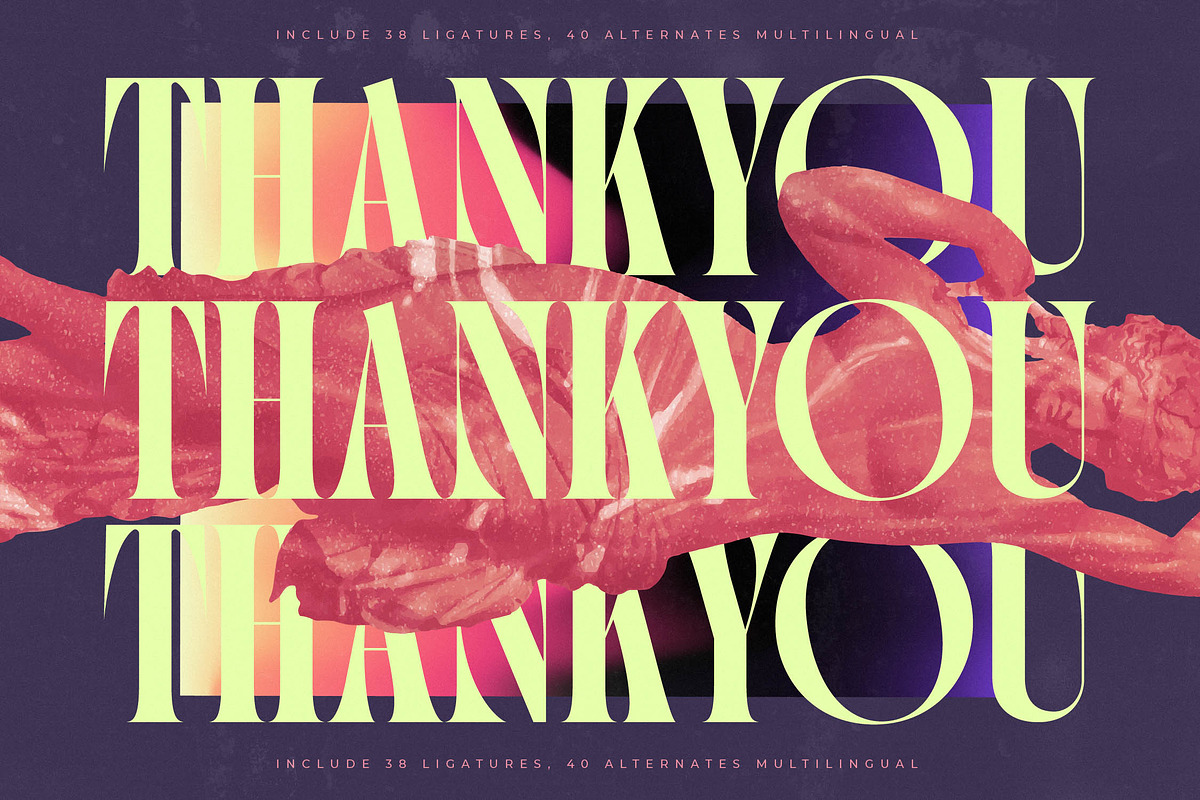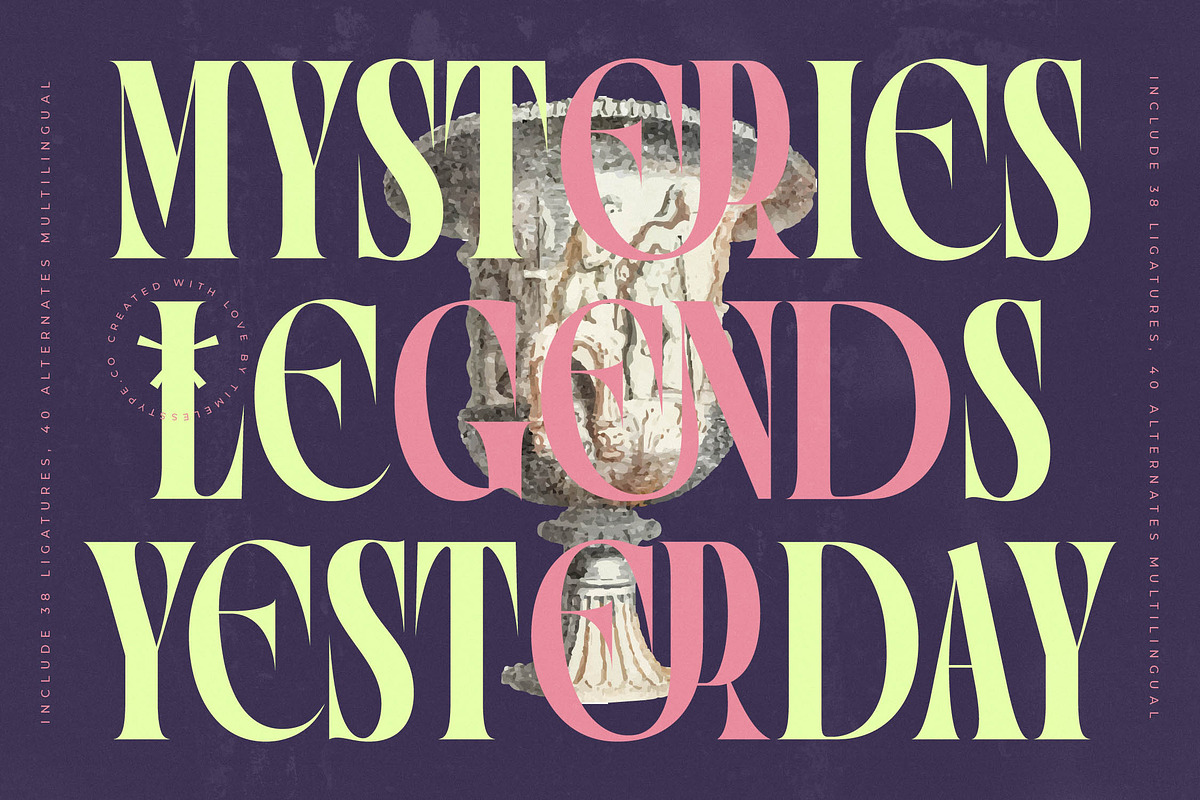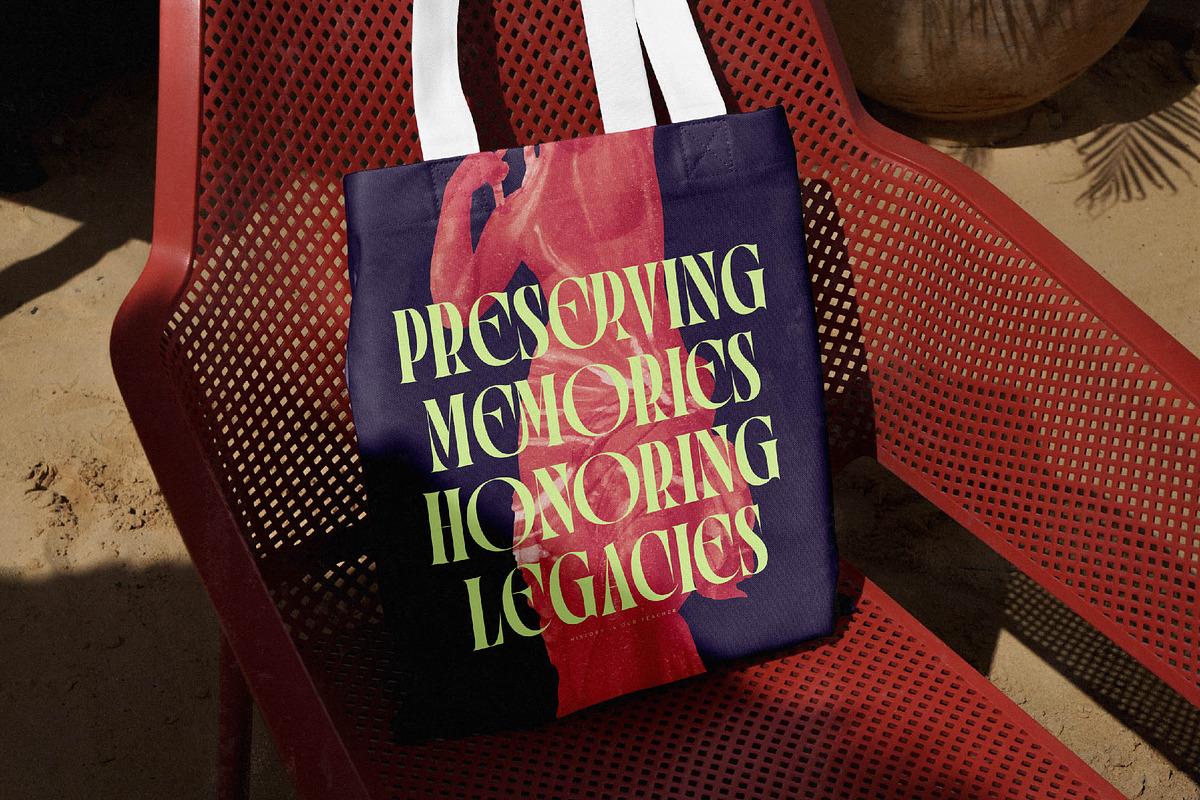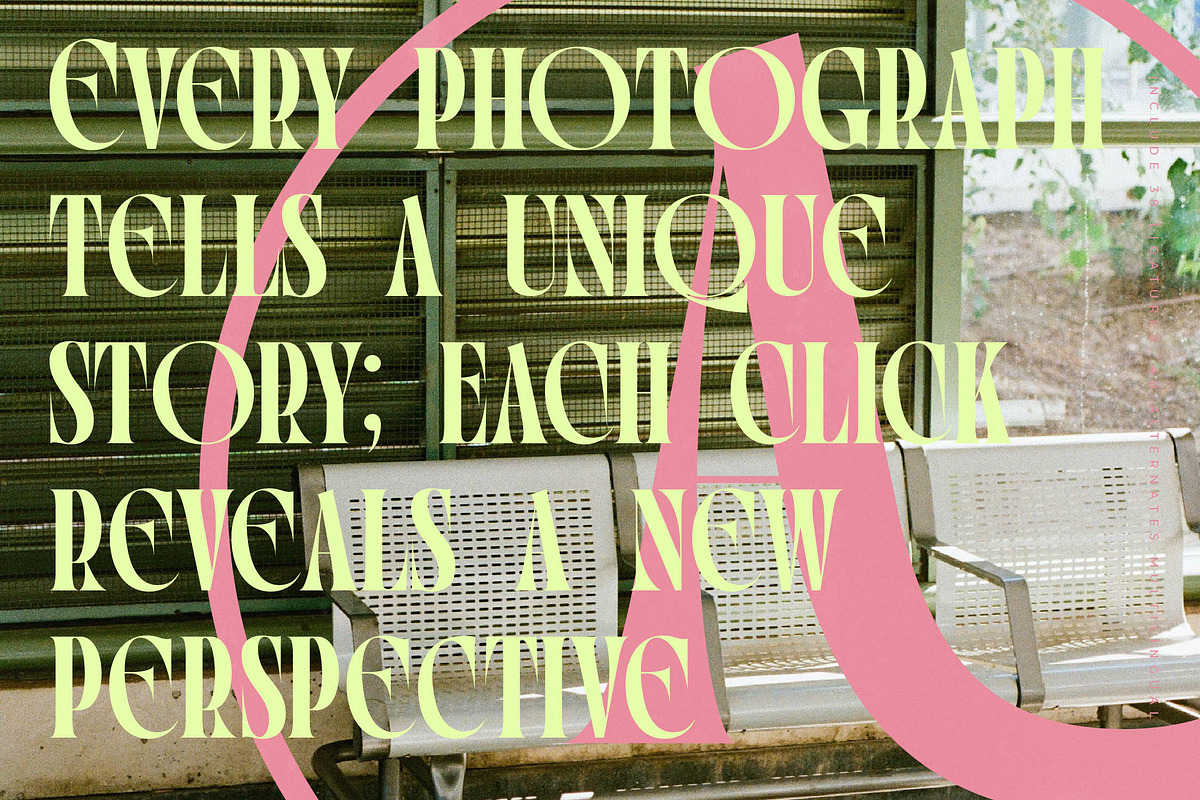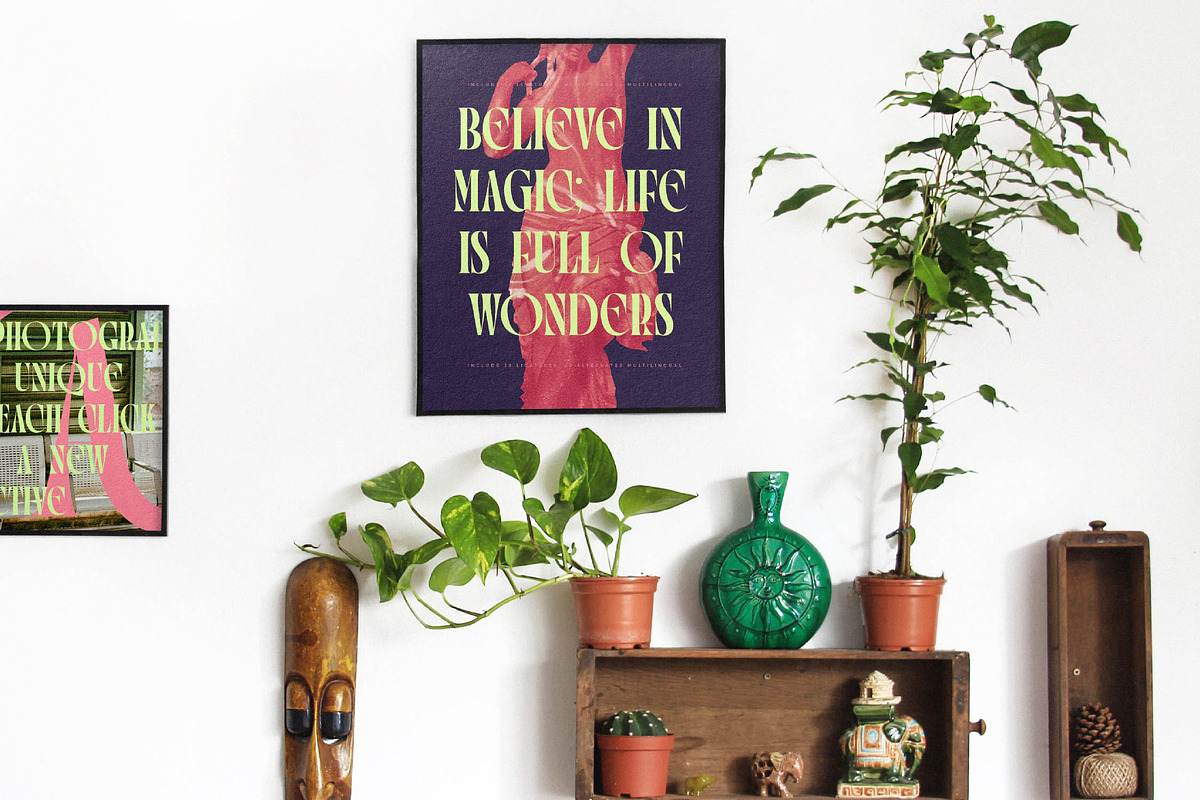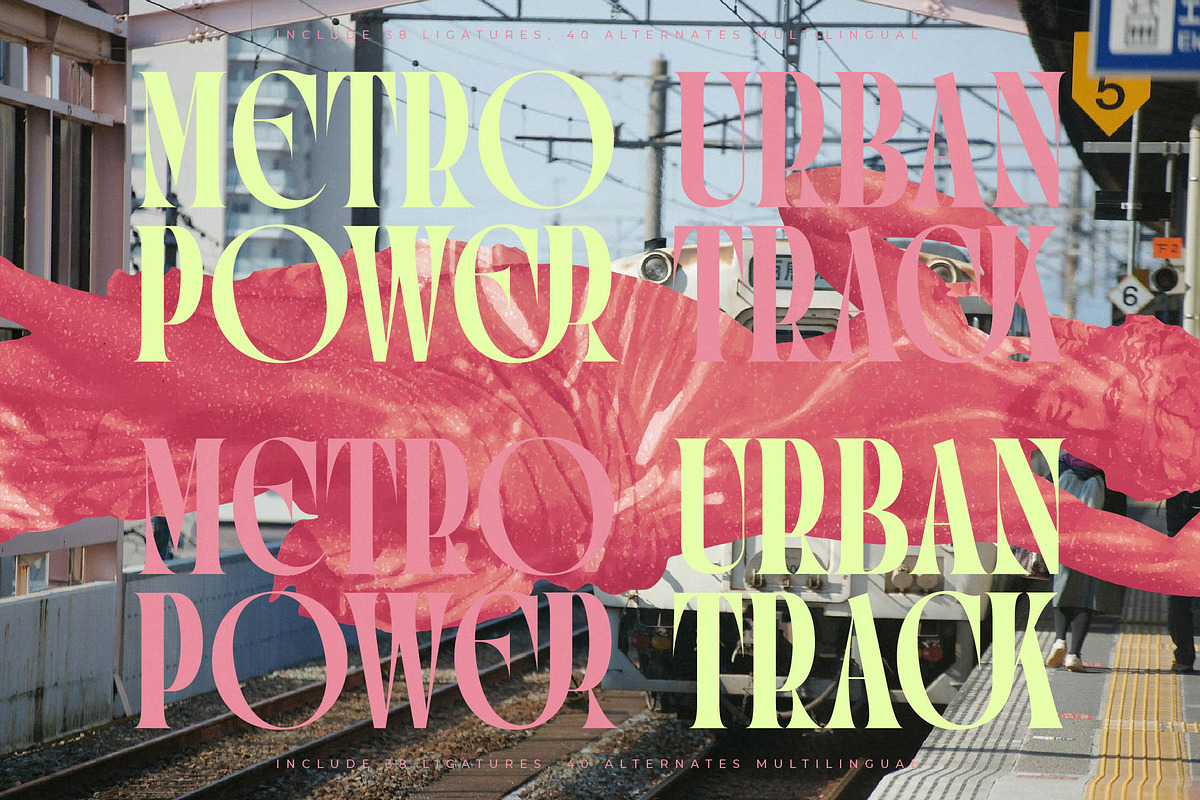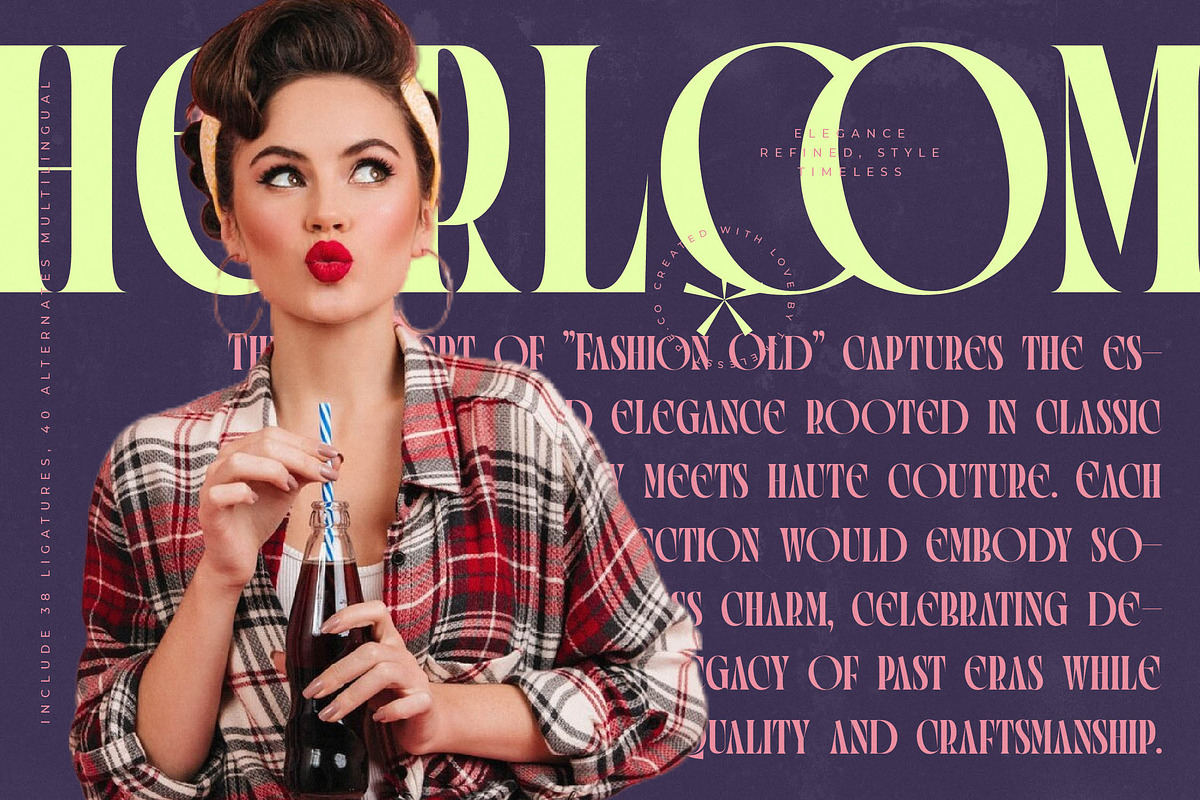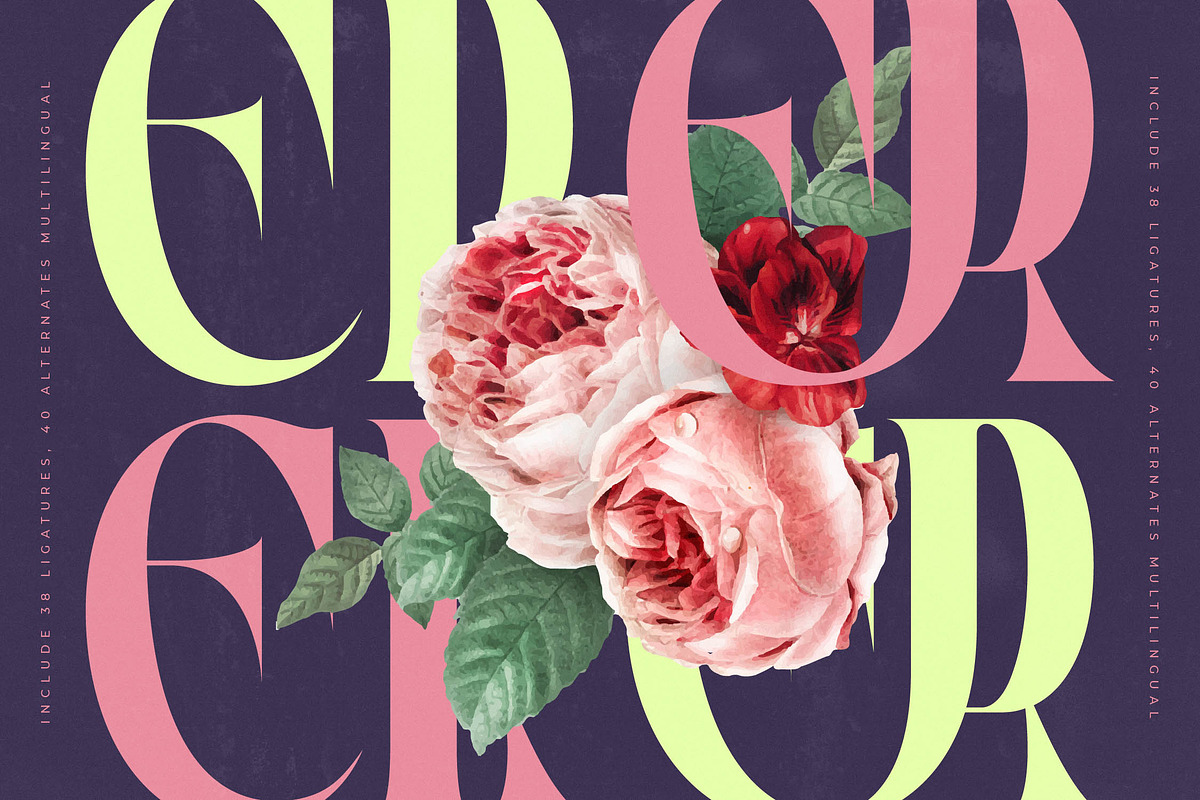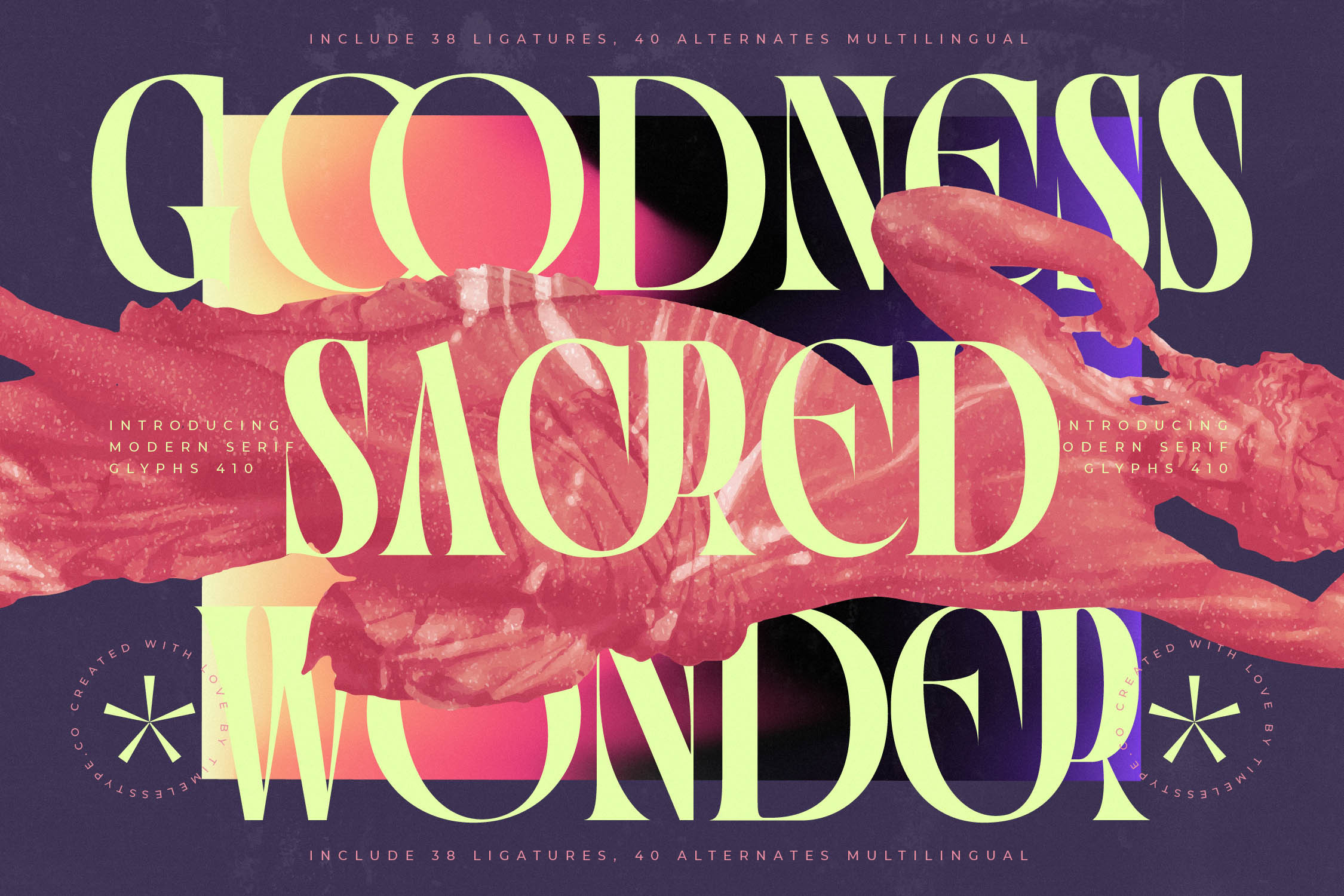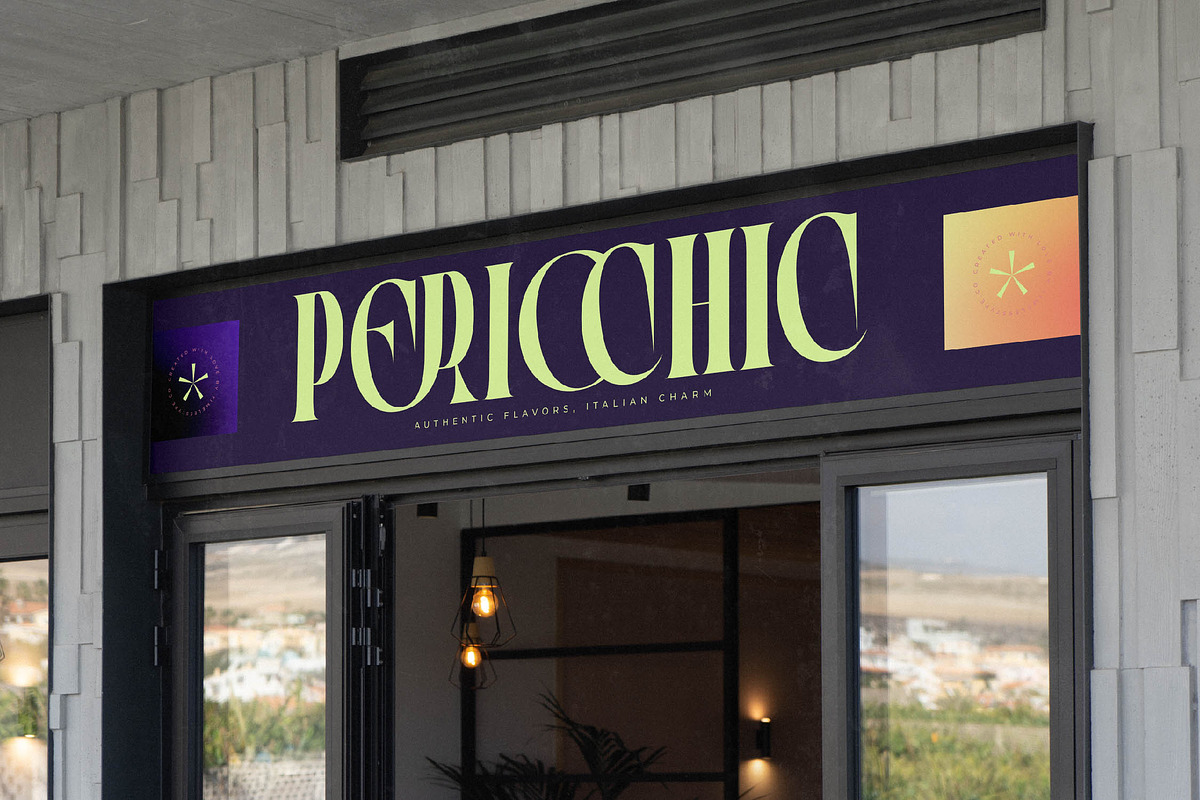
Goodness Sacred Modern Serif Font
Elevate your visual narrative with the ethereal grace of Goodness Sacred, a typeface designed for those who seek beauty in the divine details. It is a harmonious blend of classic elegance and contemporary edge, perfect for making a lasting impression.
Inspired by the interplay of light and shadow in cathedral architecture and the organic flow of high-fashion textiles, this font captures a sense of timeless wonder. It draws from the soulful artistry of sacred geometry to provide a visual experience that feels both ancient and refreshingly new.
This typeface exudes a sense of sophisticated drama through its modern serif display characteristics and luxury typography appeal. With its high-contrast serif strokes and refined curves, it serves as a powerful editorial font that delivers a significant branding impact across any medium.
Aligning perfectly with the current modern serif trend, this typeface meets the demand for editorial display fonts that break away from the mundane. Its character-driven typography ensures your work remains at the forefront of contemporary design aesthetics, offering a unique voice in a crowded digital landscape.
From high-end logo design to cohesive branding suites, this font is versatile enough to lead the way in editorial layouts and luxury packaging concepts. It is an exquisite choice for wedding invitations and high-concept fashion lookbooks that require a touch of transcendental elegance.
The set is packed with over 38 ligatures and 40 alternates that allow for endless customization and unique character pairings. It also offers comprehensive multilingual support and a wide range of international characters, ensuring your message resonates globally without limitations.
- Ligature 38 Alternate 40